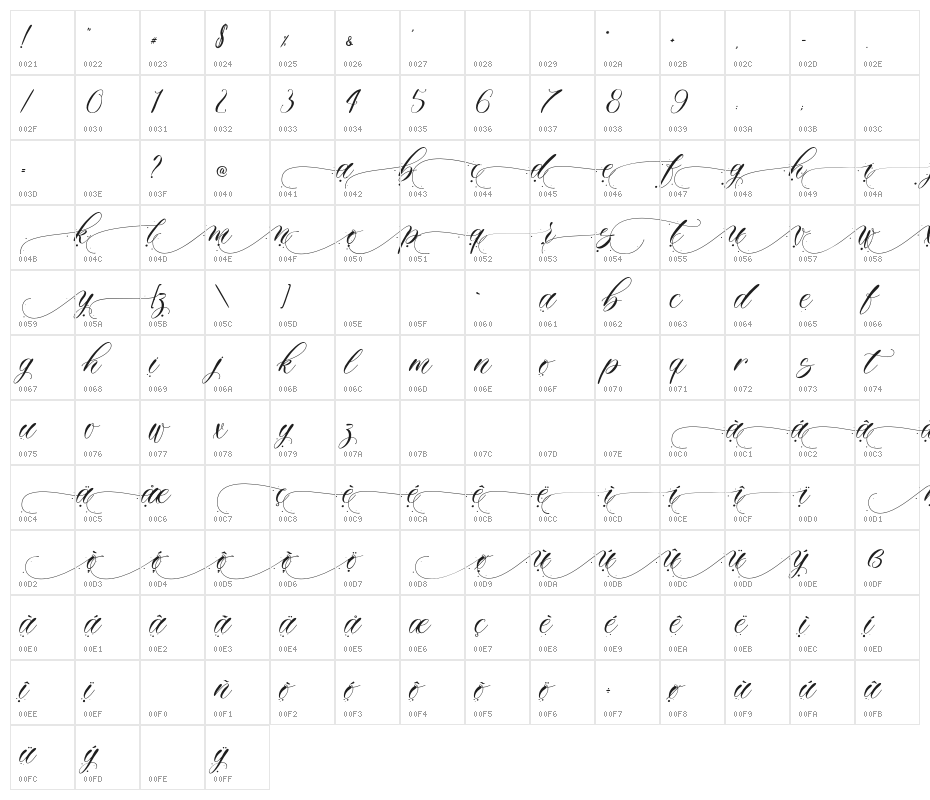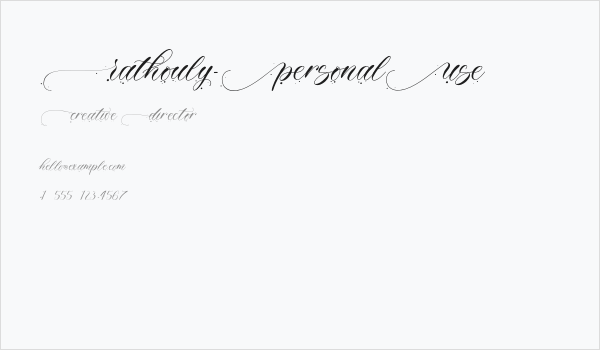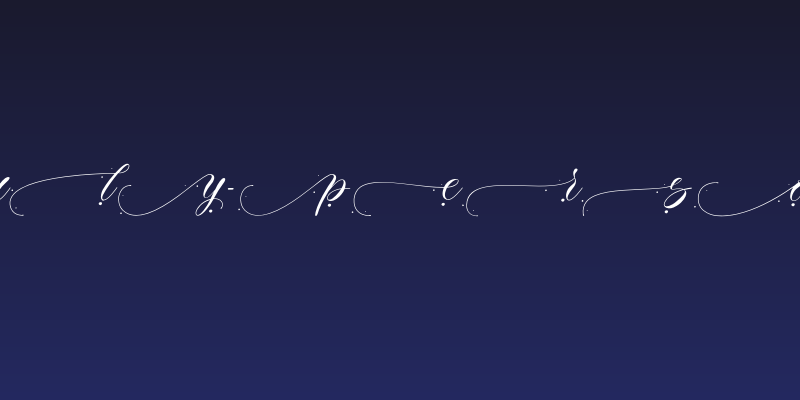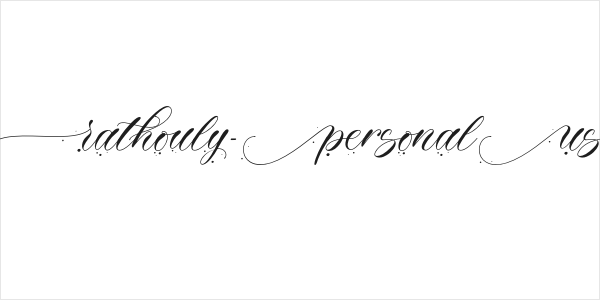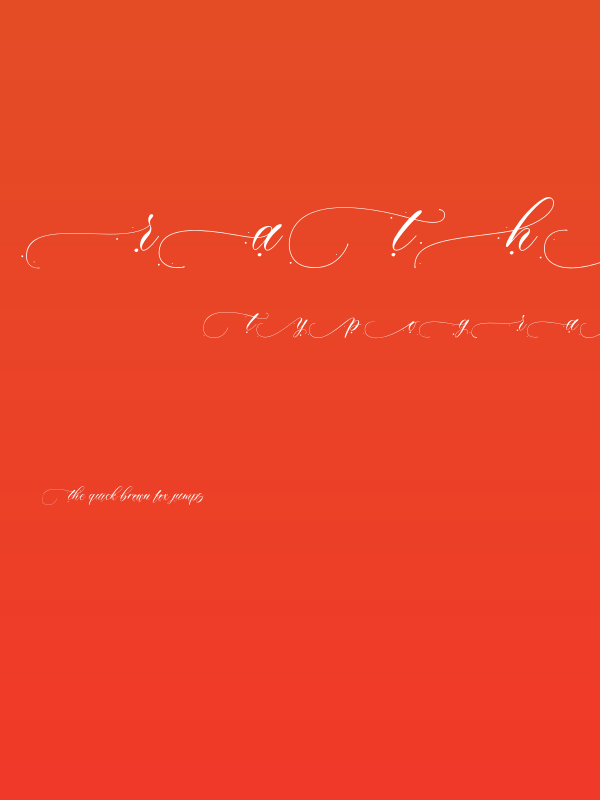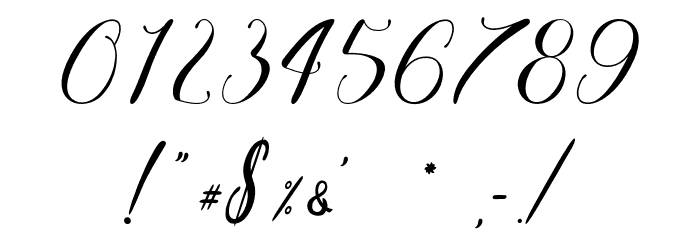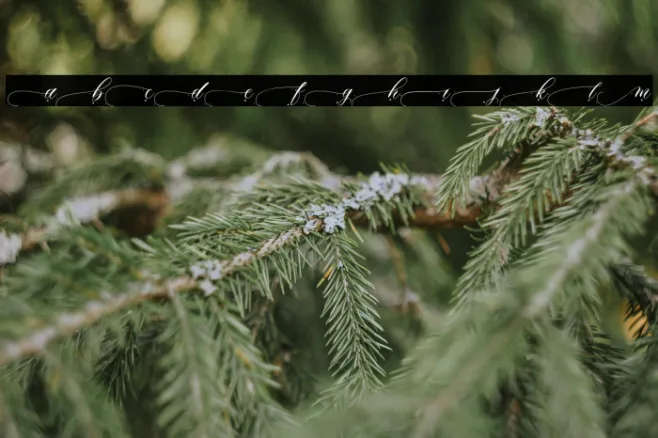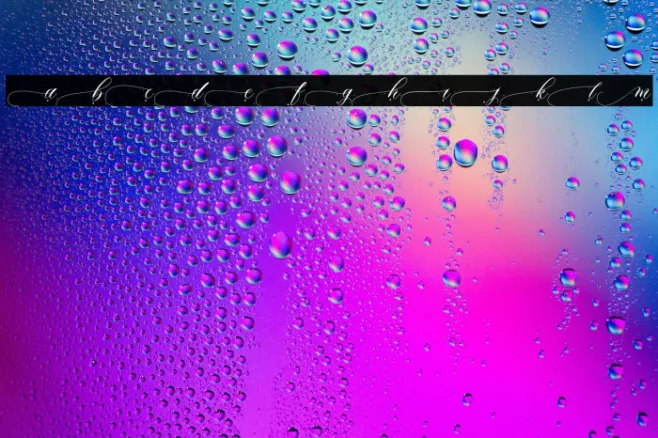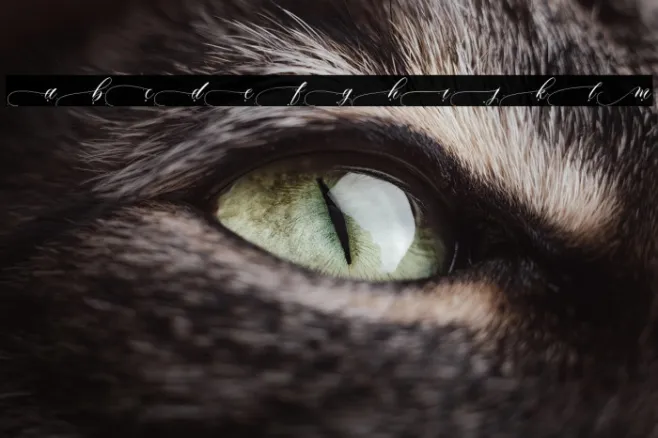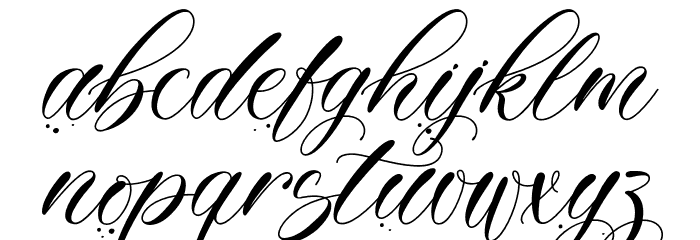
Rathouly-PersonalUse Font
Rathouly-PersonalUse Description
This elegant script font features flowing, interconnected letters that exude a sense of sophistication and grace. The characters are adorned with delicate swashes and flourishes, creating a dynamic and fluid appearance. The uppercase letters are particularly ornate, with sweeping curves and loops that add a touch of drama. The lowercase letters maintain a consistent style, with smooth transitions and a harmonious balance. The numerals are equally stylish, complementing the overall aesthetic. This font is perfect for projects that require a touch of elegance and refinement.
| Use Case | Logos, Invitations, Decorative Headlines |
| Proposed Projects | Ideal for wedding invitations, luxury branding, elegant logos, and decorative headlines. |